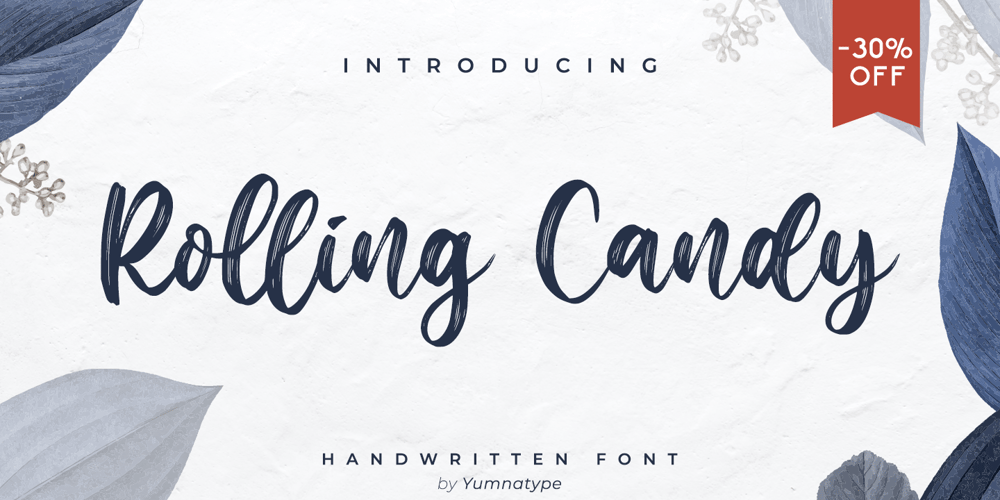
Rooling Candy Font Family was designed by Donis Miftahudin and published by Yumna Type. Rooling Candy contains 1 styles and family package options. Rolling Candy is a beautiful handwritten font with a natural and unique design will make your project more beautiful. The font is suitable for your branding project, printing, logos dan wedding.Features: Beautiful Ligatures Multilingual Support PUA encoded Numeral and Punctuation by Yumnatype